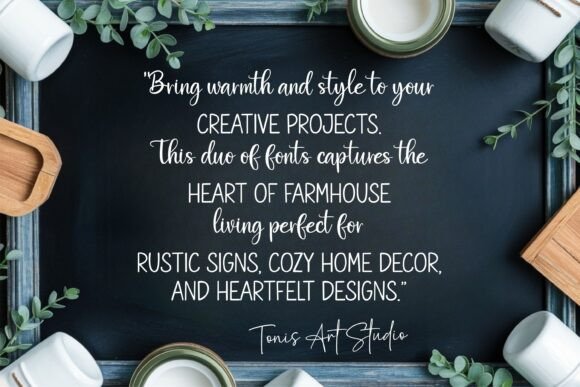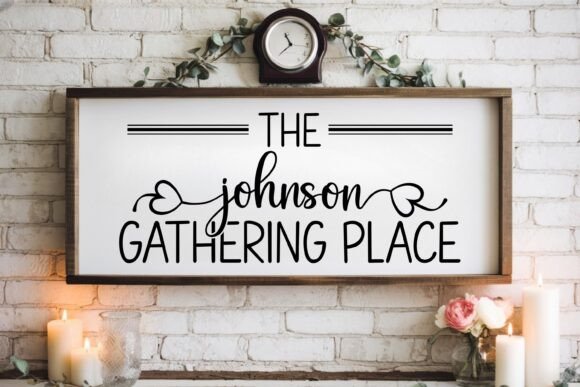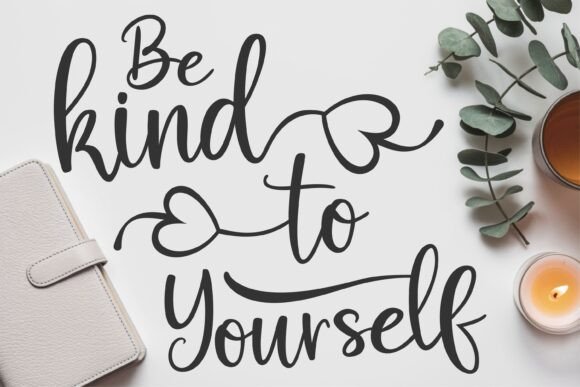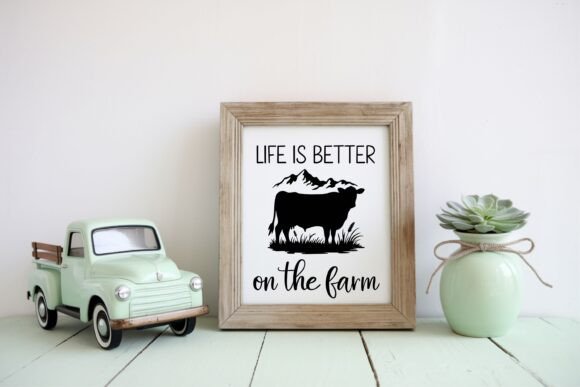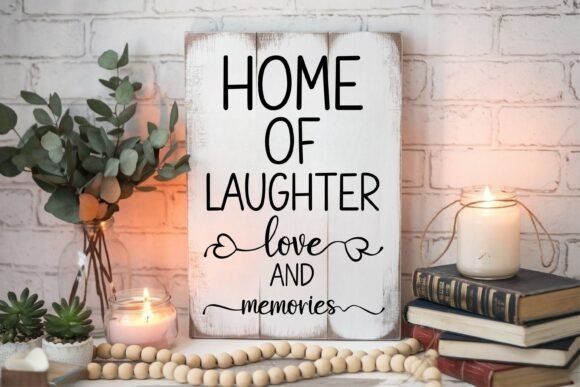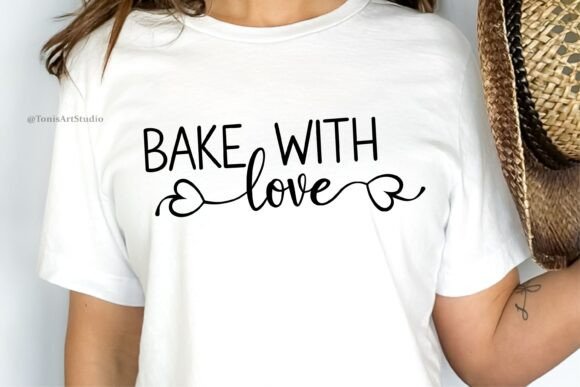
Discover the Perfect Farmhouse Font Duo for Your Design Needs
Are you a designer or crafter looking for a font combination that embodies the perfect blend of rustic elegance and modern simplicity? Look no further! Our Farmhouse Font Duo is here to elevate your designs with its unique and versatile style. This set features two complementary fonts: Farmhouse Script and Skinny Farmhouse, which work together in harmony to add a touch of sophistication and whimsy to your projects.
Farmhouse Script: Add a Touch of Whimsy to Your Designs
Farmhouse Script is a beautiful, flowing font that mimics the elegance of handwritten script. With its optional tail and heart alternates, this font adds a decorative touch to any design. The flowing curves and lines of Farmhouse Script evoke a sense of rustic charm, making it perfect for designs that require a personal and homespun feel. Whether you’re creating wedding invitations, branding materials, or social media graphics, Farmhouse Script is sure to add a touch of whimsy and personality to your work.
Skinny Farmhouse: Clean, Minimalist, and Bold
Skinny Farmhouse, on the other hand, is a clean and minimalist font that provides a beautiful contrast to the ornate Farmhouse Script. With its bold, uppercase letters, Skinny Farmhouse adds a modern and sleek touch to any design. This font is perfect for headlines, titles, and other design elements that require a strong and confident look. The simplicity of Skinny Farmhouse also makes it an excellent choice for body text, providing a clear and easy-to-read format for your content.
The Perfect Pair: How Farmhouse Script and Skinny Farmhouse Work Together
So, what makes our Farmhouse Font Duo so special? The answer lies in the way these two fonts complement each other. Farmhouse Script adds a touch of elegance and sophistication, while Skinny Farmhouse provides a clean and modern contrast. When used together, these fonts create a balanced and versatile look that’s perfect for a wide range of design applications. Whether you’re creating a rustic-themed wedding invitation or a modern brand identity, our Farmhouse Font Duo has got you covered.
Design Applications for Farmhouse Script and Skinny Farmhouse
Our Farmhouse Font Duo is incredibly versatile and can be used in a variety of design applications, including:
- Blog and website design
Tips for Using Farmhouse Script and Skinny Farmhouse
To get the most out of our Farmhouse Font Duo, here are some tips to keep in mind:
- Use Farmhouse Script for decorative elements, such as titles, headings, and captions.
- Use Skinny Farmhouse for body text and other design elements that require a clear and easy-to-read format.
- Experiment with different font sizes and combinations to create visual interest and hierarchy.
- Add a personal touch to your designs with the optional tail and heart alternates in Farmhouse Script.